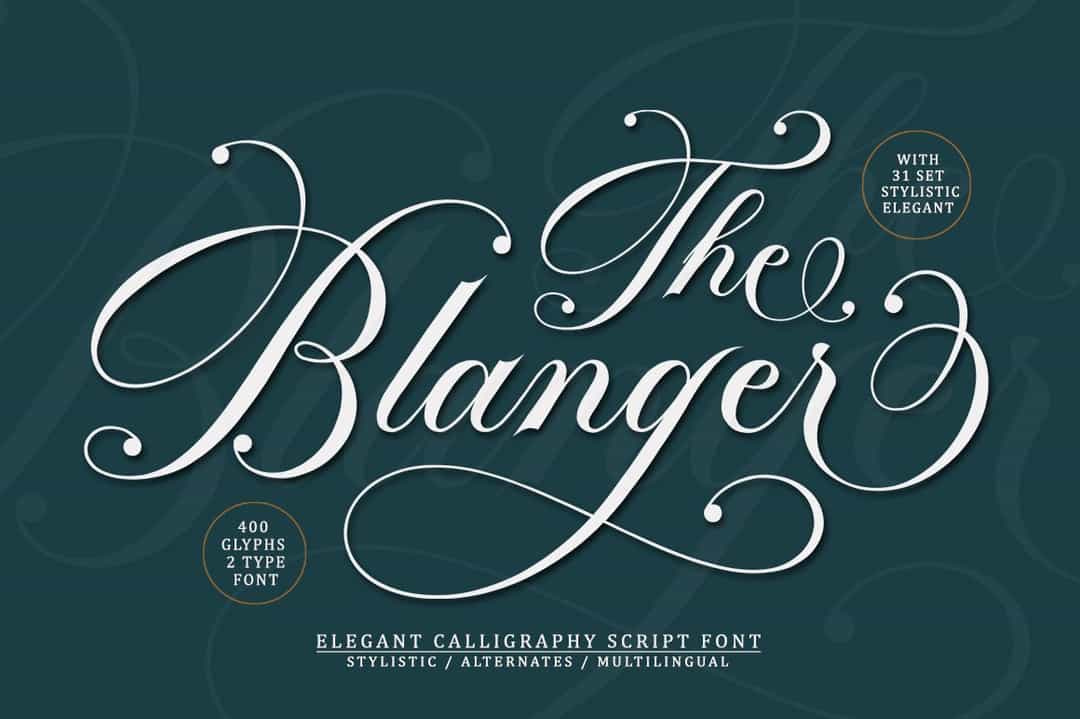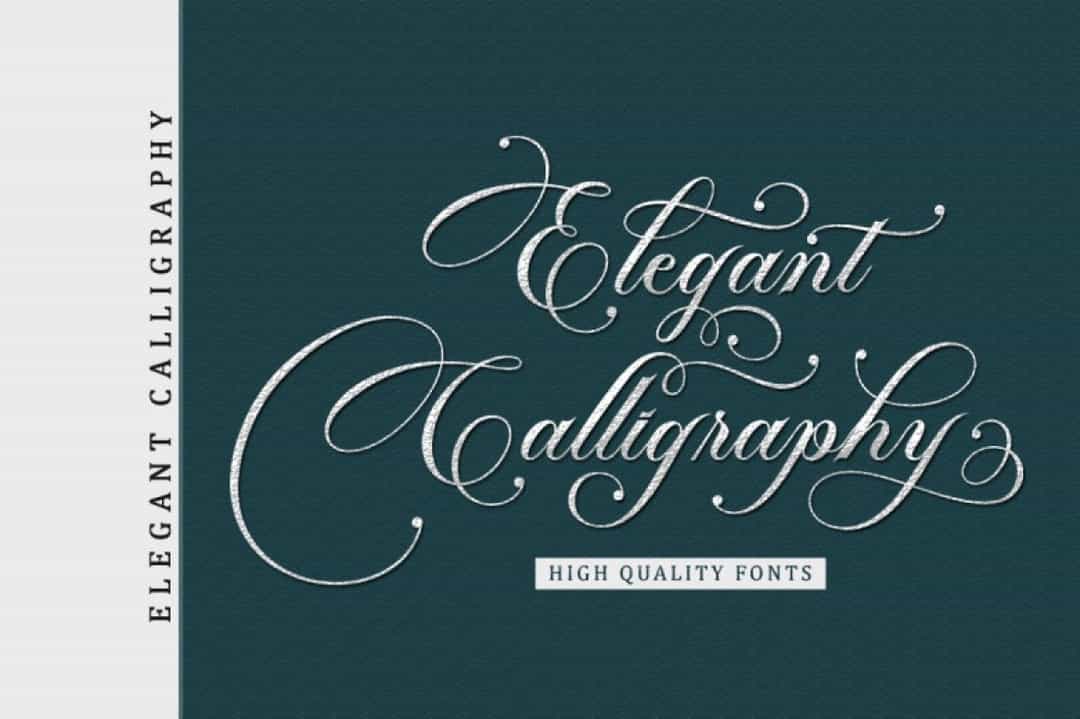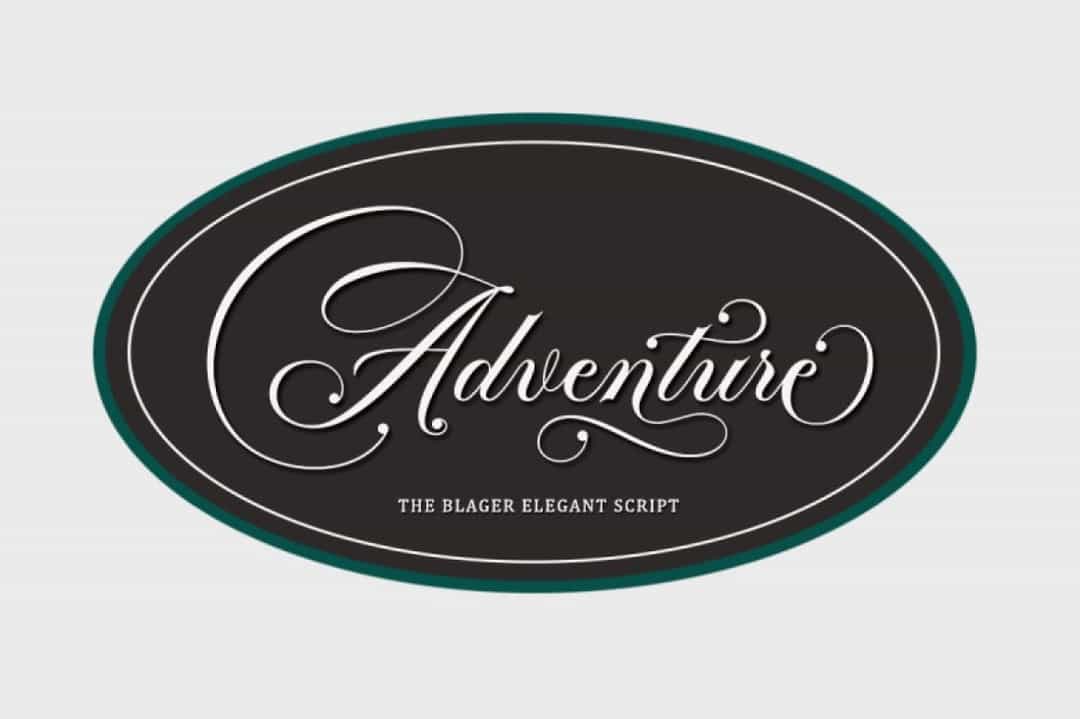
Discover The Blanger Font, part of the Calligraphy collection—a versatile and unique font perfect for adding a personal touch to your projects. Download it for free and enjoy crafting designs with style, from invitations to social media posts. This font is available exclusively for personal use, giving you the freedom to create without limits. Unlock your creativity with The Blanger Font today!
The Blanger is one of the most exquisite script calligraphy fonts available, boasting an exquisite character switch. Inspired by traditional copper decorative script, its modernized version boasts exquisite detail to highlight sophisticated style. The Blanger script is captivating; pleasing to both eyes, sensual, beautiful, easy to read thanks to numerous elegant connections between letters. It makes reading effortless!